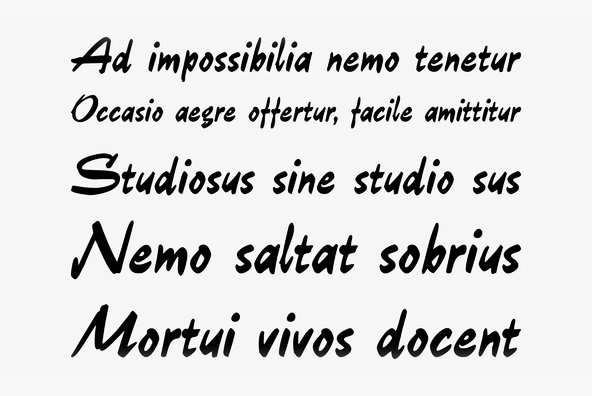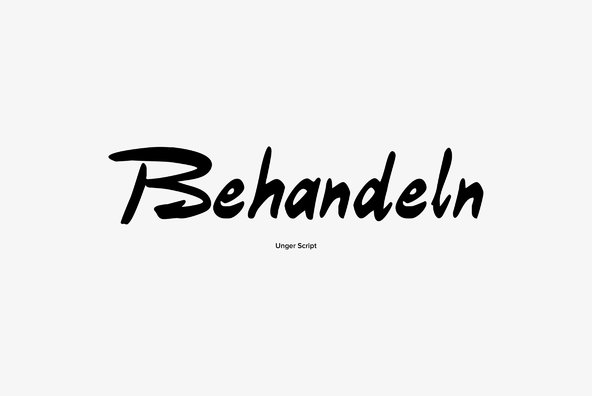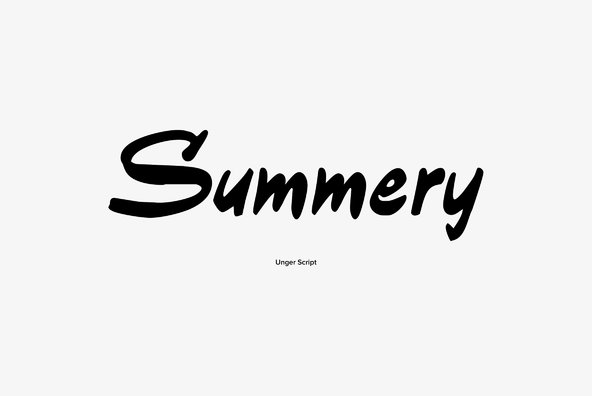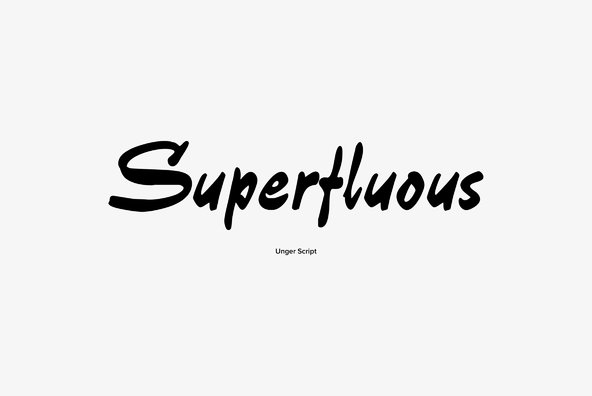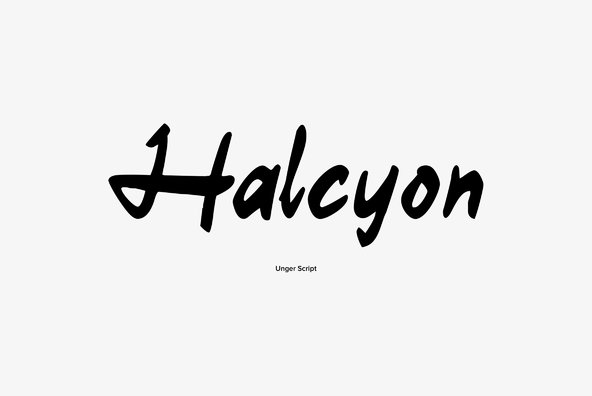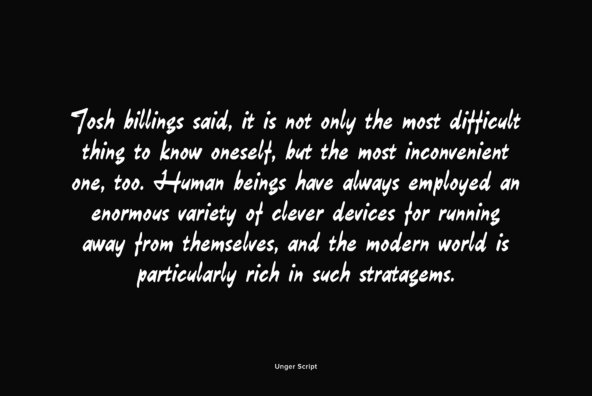
Unger Script
Unger Script is a font which is obviously based on Aldo Novarese's Slogan designed for Nebiolo in 1957. This very expressive script design is defined by its widely swinging upper case and its quite narrowly designed lower case characters. Ralph M. Unger redrew and digitized this font in 2001. His work is based on artwork taken from old font catalogs.